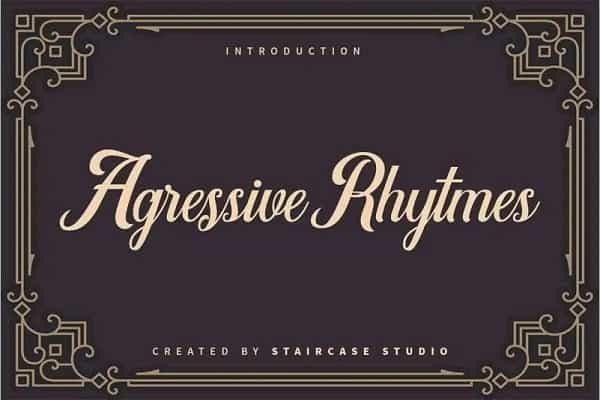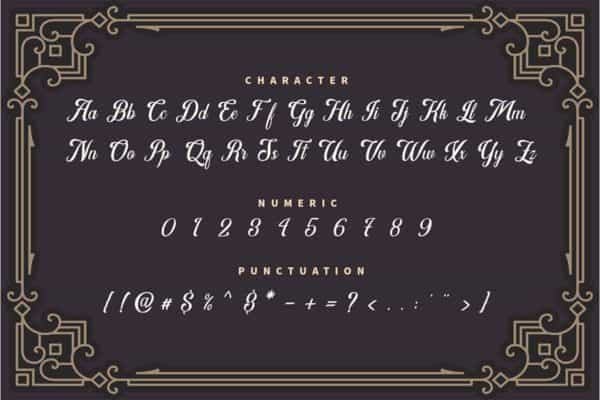
Aggressive Rhytmes Font. It Fonts comes is a striking connected script font that has distinct style and a an eerie motion. Each and every letter has been designed with care in order to enhance your look more appealing.